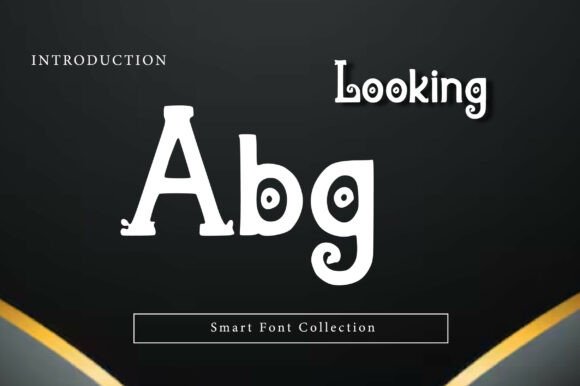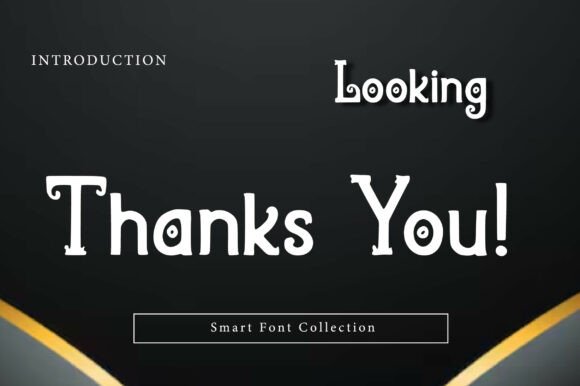
Introduction to Looking Font
Looking is a playful, bold, and charming display font with a vintage-inspired serif style.
Designed with rounded curves, soft edges, and a friendly retro personality, this typeface delivers a nostalgic yet modern feelโperfect for eye-catching headlines, logos, posters, and creative branding The font features a unique classic serif structure with a fun twist, making it ideal for designs that need to feel warm, welcoming, stylish, and expressive.
Key Features of Looking Font
Why Choose Looking Font?